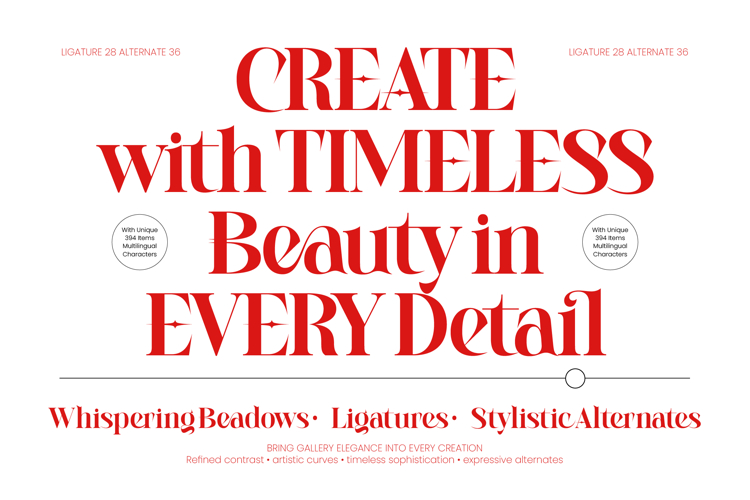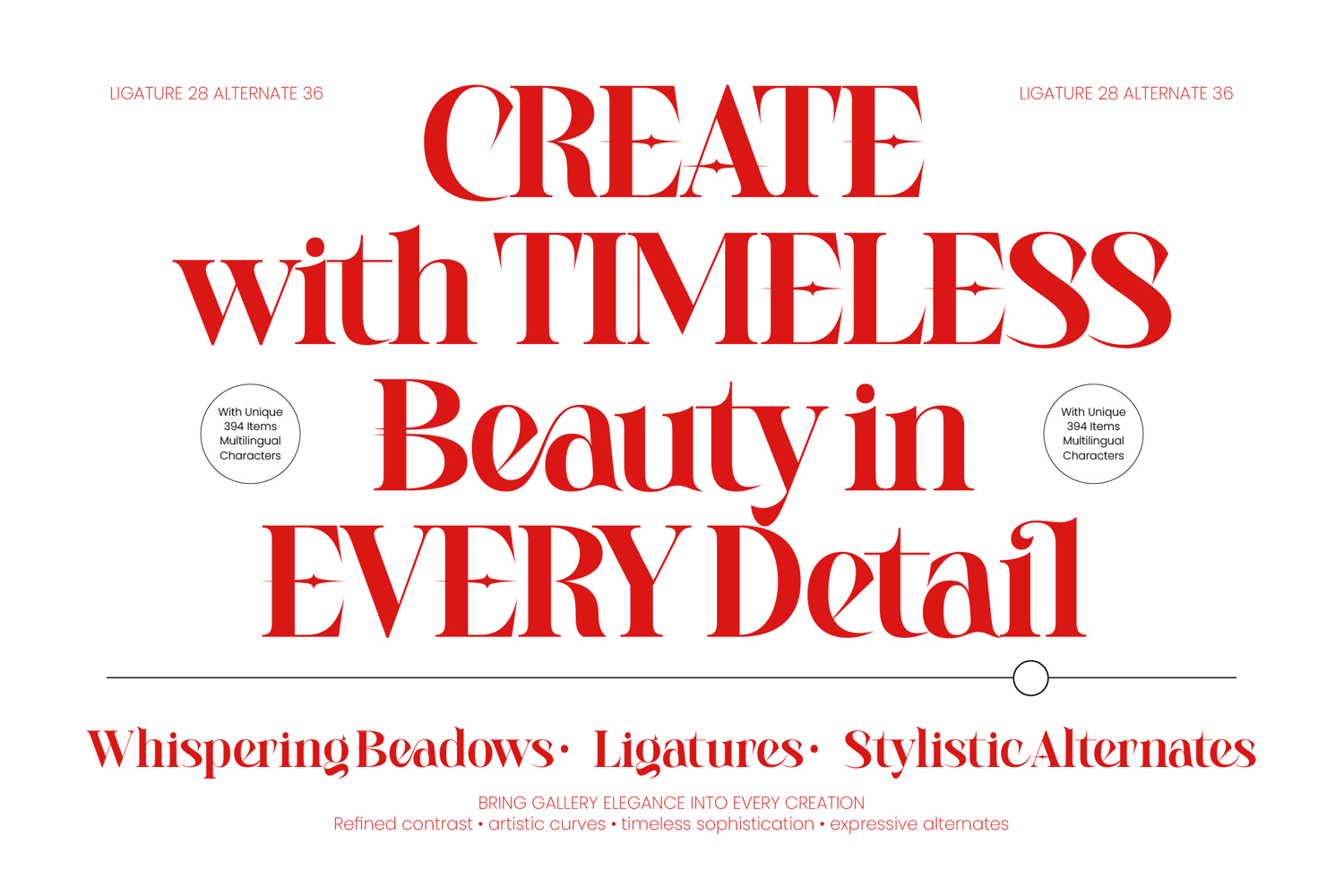
Whispering Beadows - Modern Serif
Elevate your design projects with a touch of high-end sophistication and timeless elegance. Whispering Beadows - Modern Serif is a masterpiece of high-contrast typography, blending razor-sharp serifs with fluid, artistic curves to create a truly luxurious aesthetic. Its refined silhouettes and modern editorial feel make it an essential tool for designers seeking to convey prestige and gallery-level elegance in every composition.
Unlock unparalleled creative freedom with a vast array of bespoke typographic features. Whispering Beadows - Modern Serif provides a comprehensive toolkit including 28 custom ligatures and 36 expressive alternates, allowing for unique character combinations that mimic high-end custom lettering. These stylistic variations ensure that your headlines remain distinct and memorable, capturing attention through visual harmony and sophisticated detailing.